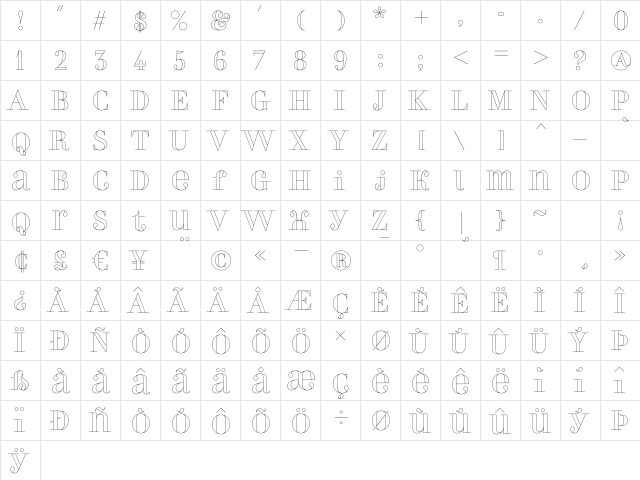
PerlaOutline Regular
Design Context for PerlaOutline Typeface
PerlaOutline brings ornamental detail and strong personality to headlines and identities, where visual impact matters more than quiet functionality.
Font Pairing: Pair with a clean neutral sans-serif for body copy to let PerlaOutline's character lead without overwhelming the composition.
Pro Tip: Use PerlaOutline exclusively at display sizes — it was designed to be seen, not read at length. Let a neutral companion handle body copy.